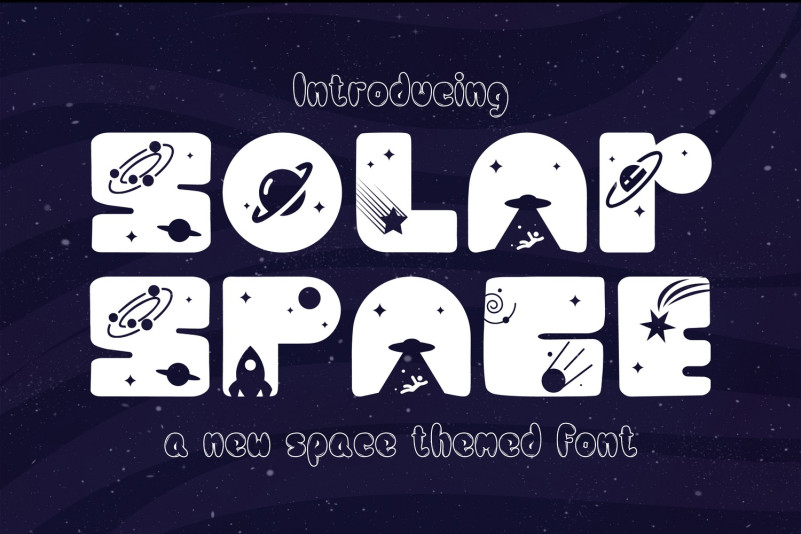
Solar Space Display Font is a futuristic scifi display font. It’s a futuristic font with alternate letters. This font which helping to create futuristic hi-tech atmosphere and style. Wide and rounded typeface design with a modern minimalist approach. Perfect usage includes logo, poster, display, headline, t-shirt design and many more.